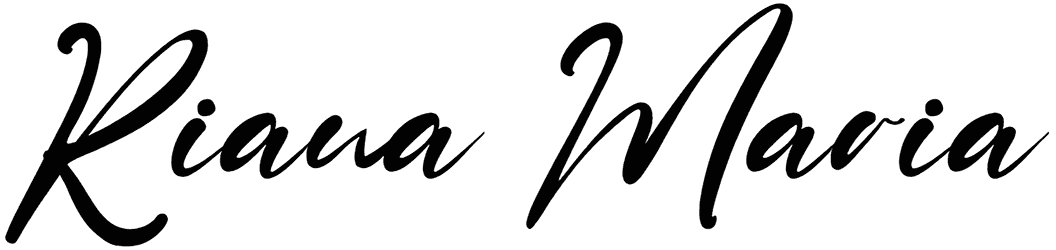
Riana Maria Font
Riana Maria is crafted with care and skill to create a stunning visual masterpiece and can offer unparalleled sophistication and elegance. This calligraphy font is not only considered for formal occasions but can add charm to more informal designs.
From handwritten notes to social media graphics, this script font has versatility, making it a popular choice for creatives in all industries. So the next time you want to add some sophistication to your design, take yourself to new heights with Riana Maria.